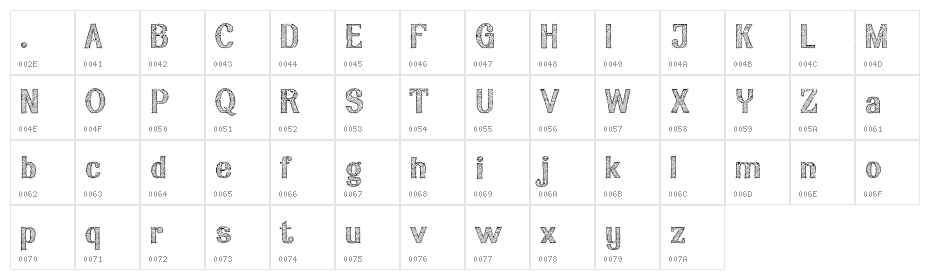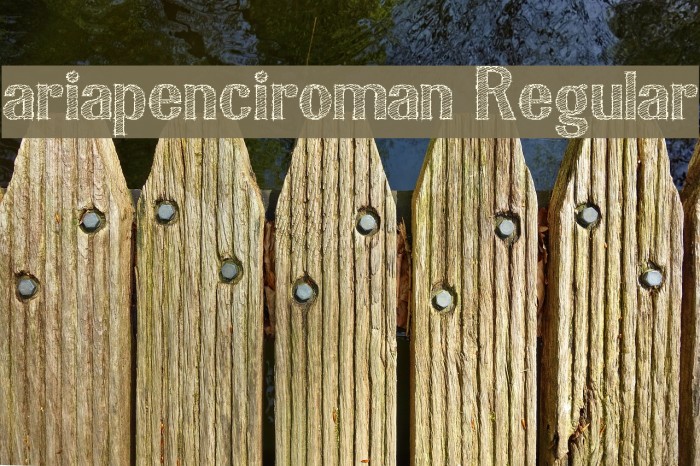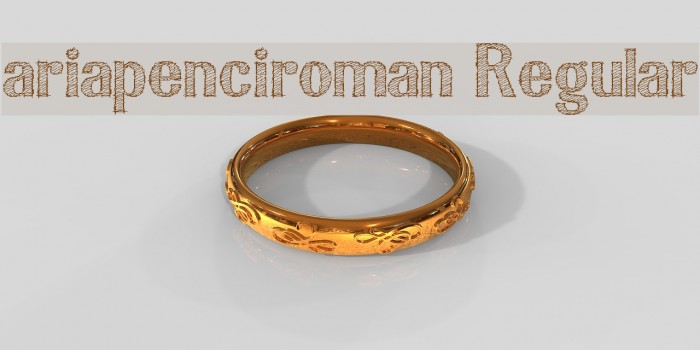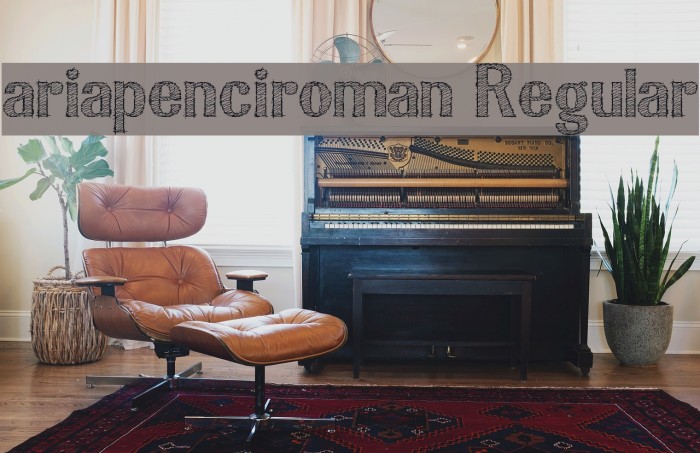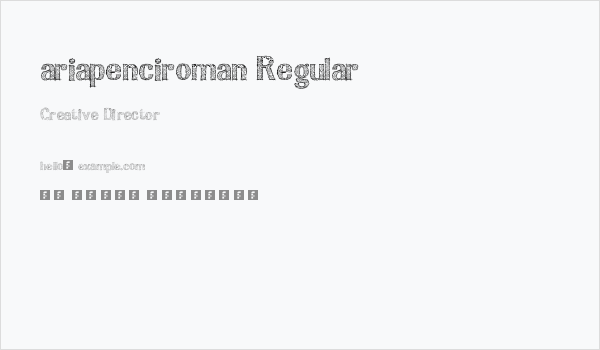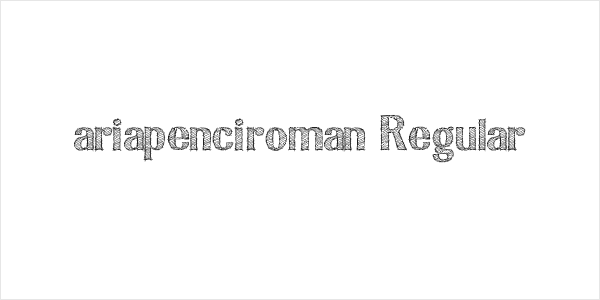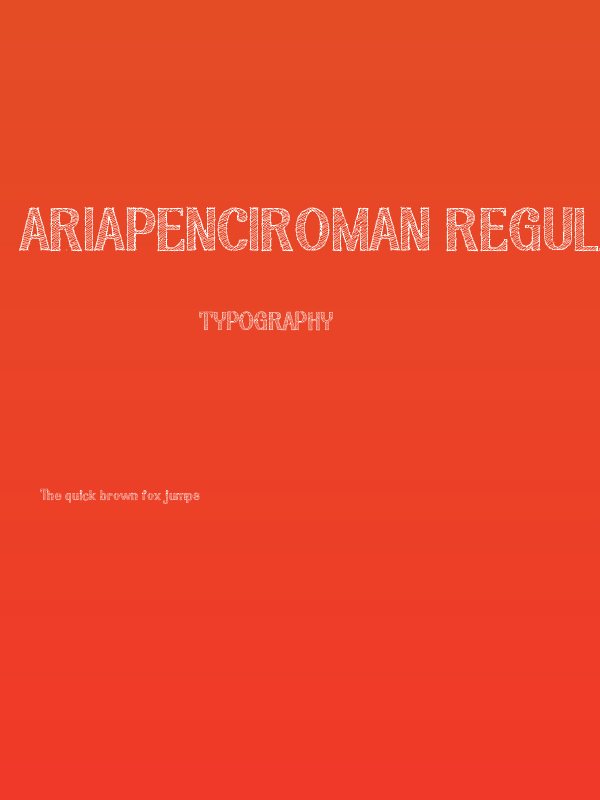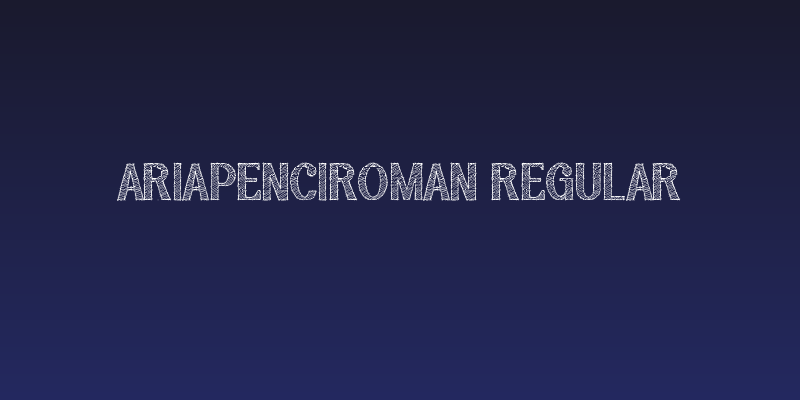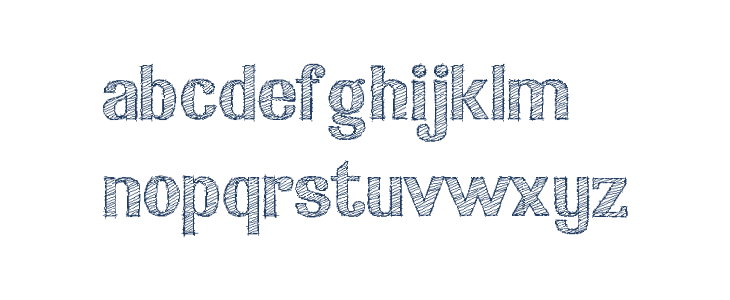
ariapenciroman Regular Font
ariapenciroman Regular Description
This font features a distinctive hand-drawn style with a textured, sketch-like appearance. The uppercase and lowercase letters maintain a consistent width, giving the font a balanced look. The strokes are bold and slightly irregular, adding a playful and artistic touch. The characters are well-defined, with clear differentiation between each letter, making it highly readable despite its decorative nature. The font includes a full set of uppercase and lowercase letters, numbers, and a selection of special characters, all following the same textured style. This unique design makes it suitable for creative projects that require a personal and informal touch.
Proposed ProjectsIdeal for greeting cards, posters, children's books, and creative branding projects.